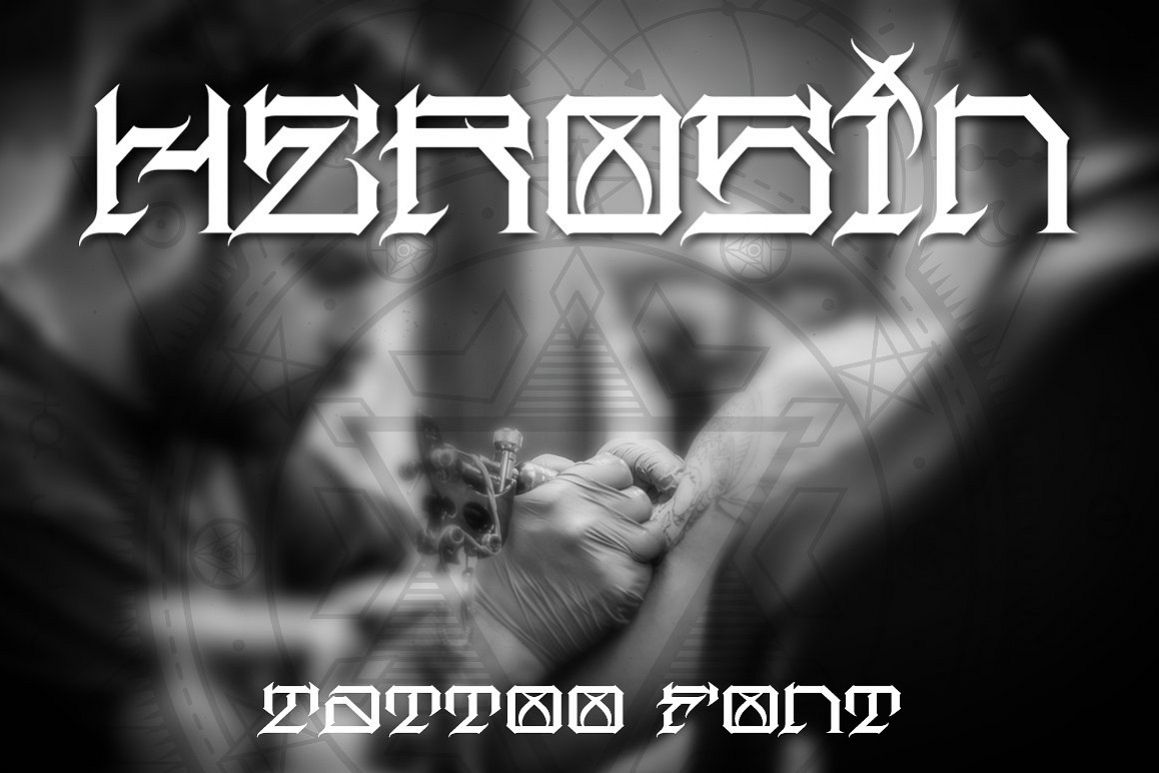
Herosin
Herosin is a decorative, new school tattoo inspired typeface in
modern performance.
This font includes 2 sets of characters and
numerals.
It is perfect for:
Logos
Posters
Labels
Headlines
Apparel
& more